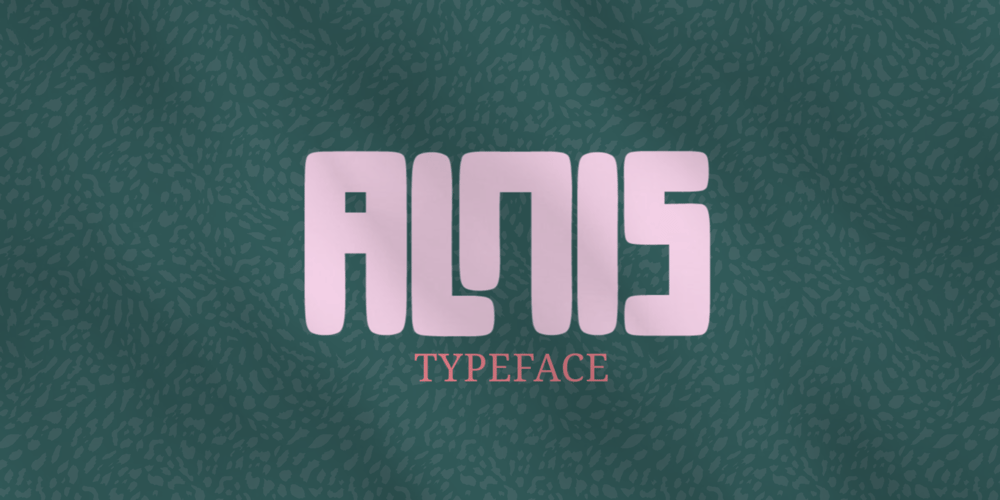
Alnis Font Family was designed by Zaizafun Hanifah and published by Daily Studio. Alnis contains 1 styles and family package options. Alnis is a bold type font with a round but straight shape. This font creates a formal yet relaxed vibe for any of your projects. Best font for designers. Alnis is excellent for logos, posters, cards, ext. Make your project look fascinating by combining it with another font. This font comes up with full uppercase, lowercase, and multilingual letters.